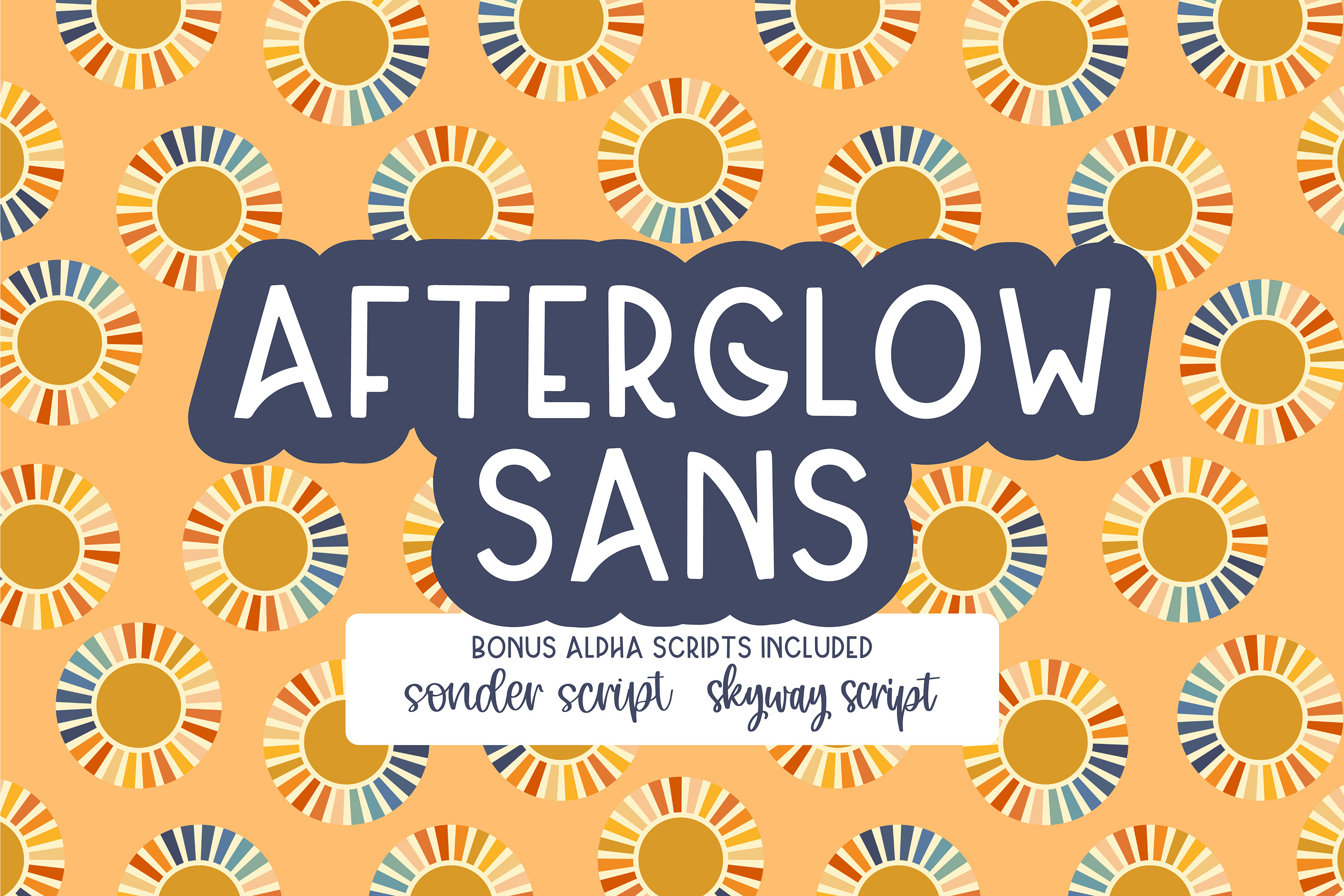
Sonder Script Regular
Skyway Script is an art deco font family. This typeface has three styles and was published by On The Spot Studio.
afterglow sans is a super fun and quirky all caps sans serif font. it pairs great with script fonts and other styles! skyway script is a handwritten quick note type font. it includes only upper and lowercase letters. sonder script is a bit fancier, more elegant that also only includes upper and lowercase letters.